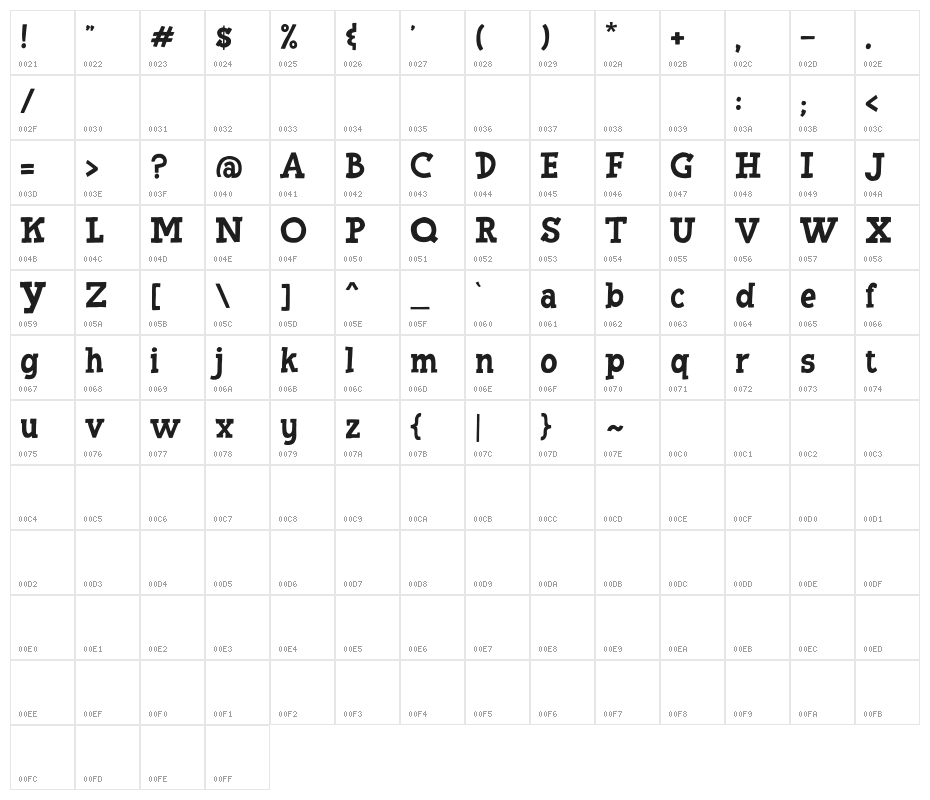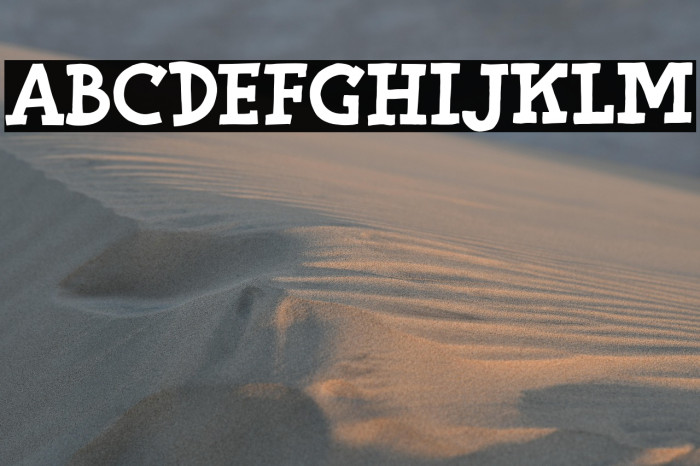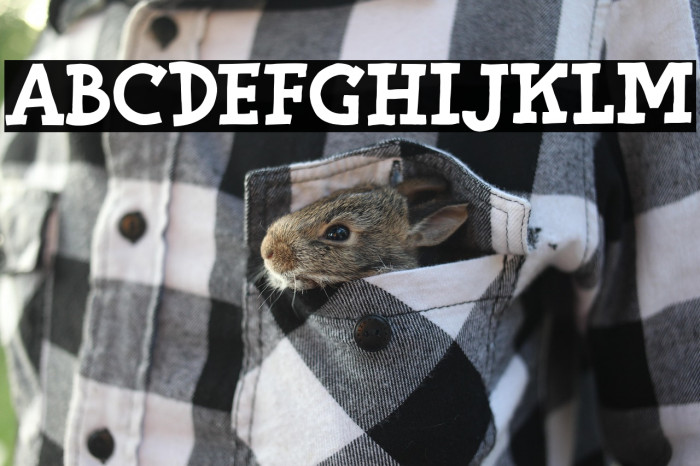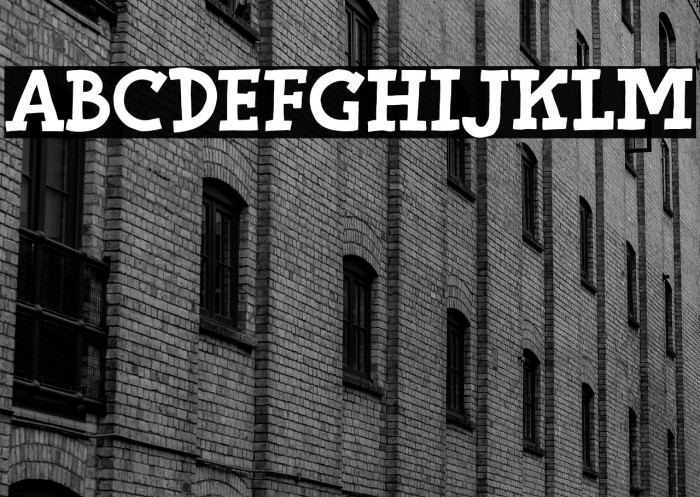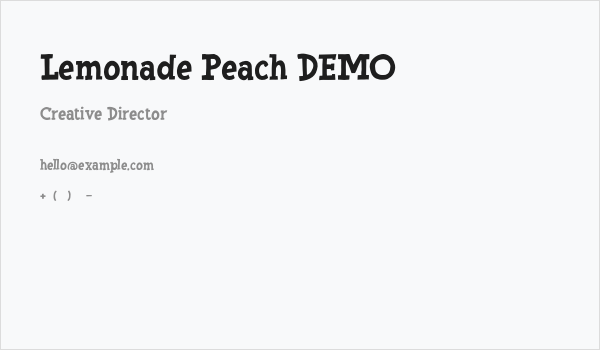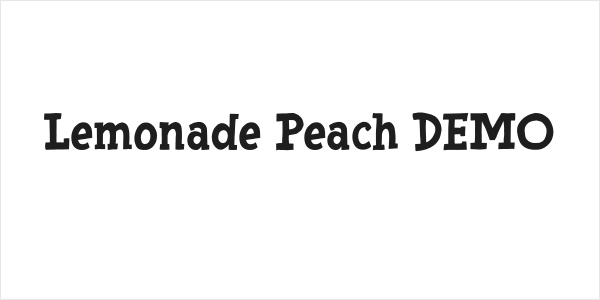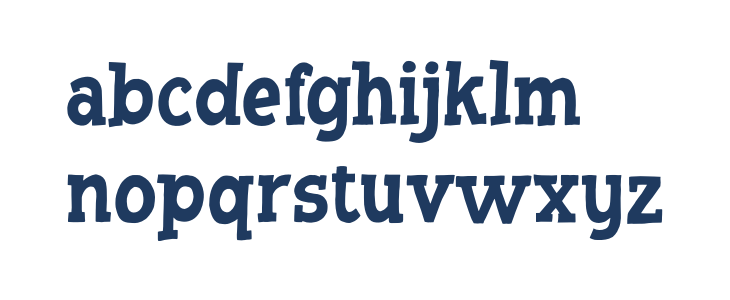
Lemonade Peach DEMO Font
Lemonade Peach DEMO Description
This font features a playful and bold design with a slightly irregular and hand-drawn appearance. The uppercase letters are robust and have a whimsical charm, while the lowercase letters maintain a consistent style that complements the uppercase. The characters exhibit a slight slant, adding to the dynamic and lively feel. The strokes are thick and consistent, providing a strong presence on the page. The font includes a full set of punctuation marks and special characters, ensuring versatility for various design needs. Its unique style makes it suitable for projects that require a fun and engaging look.
| Use Case | Headlines, Posters, Branding |
| Proposed Projects | Ideal for children's books, playful branding, posters, and greeting cards. |